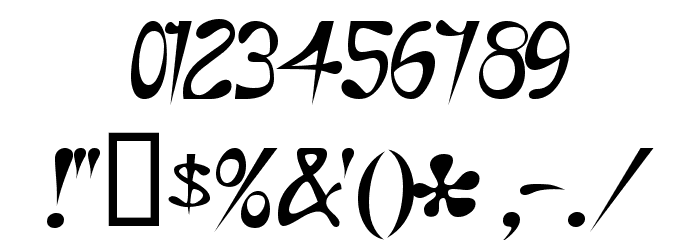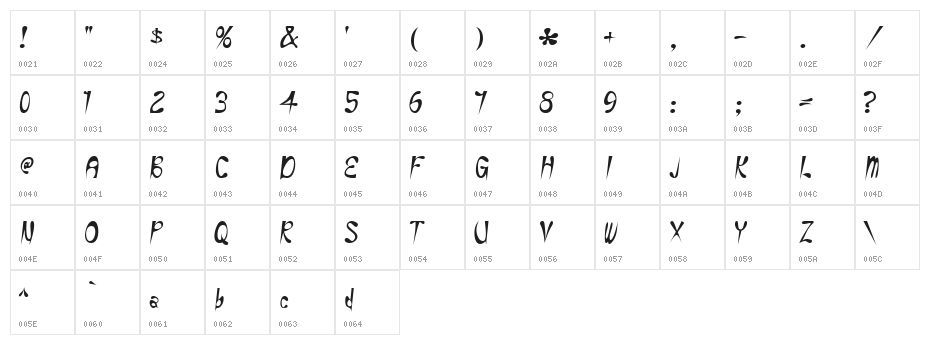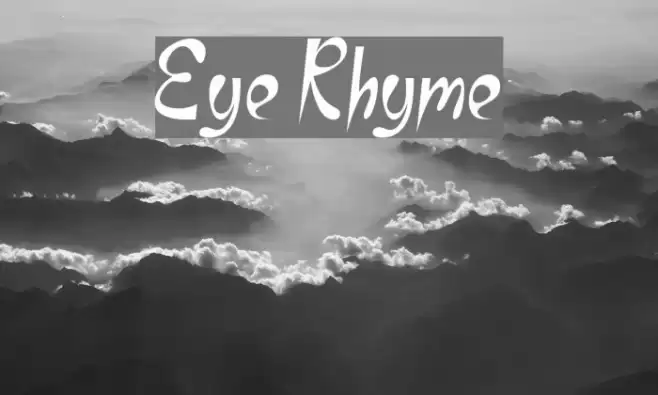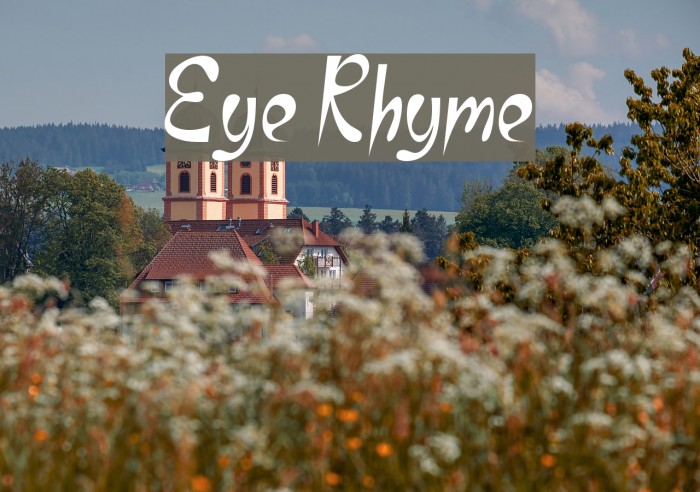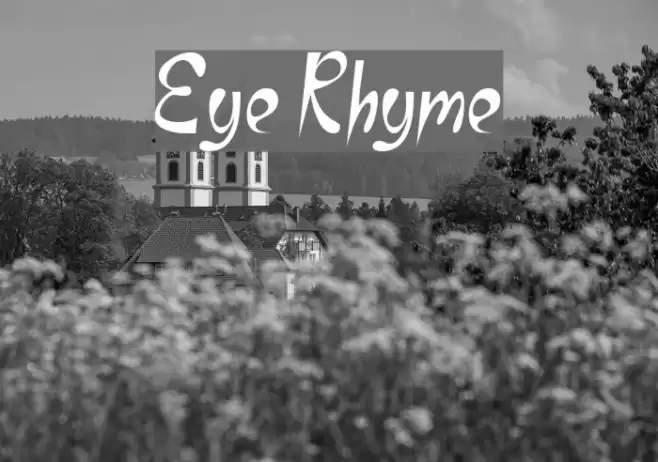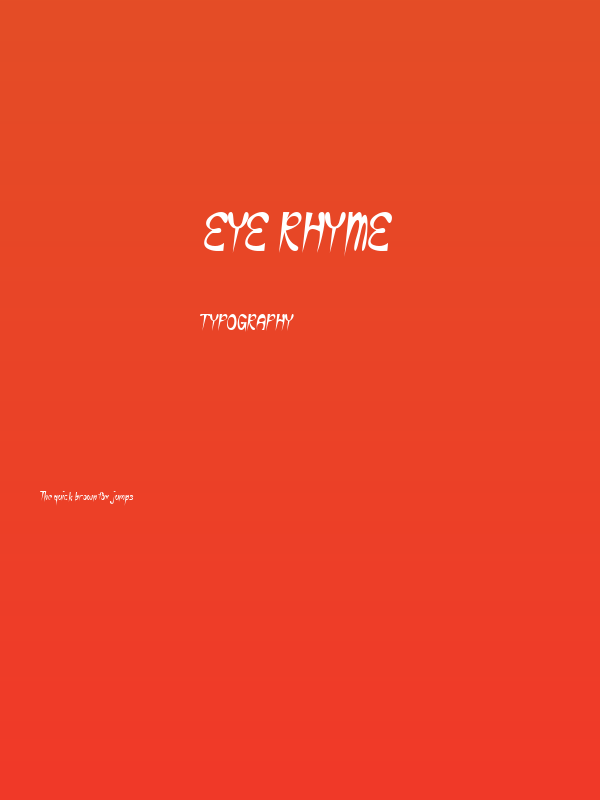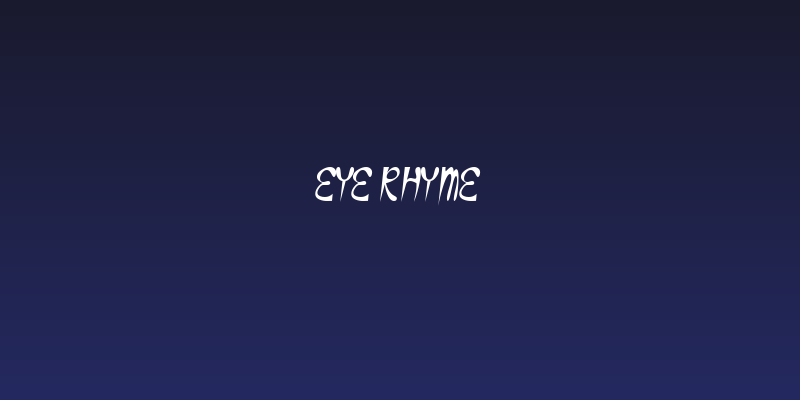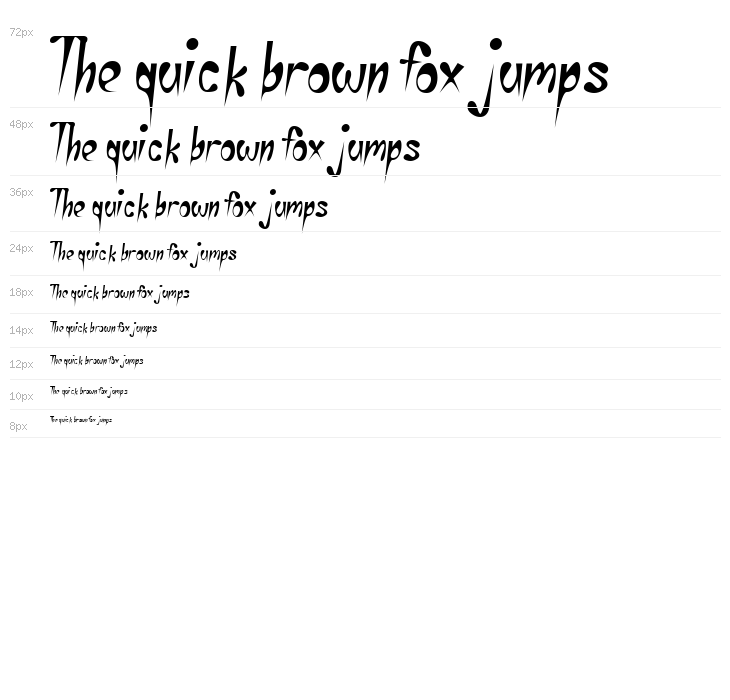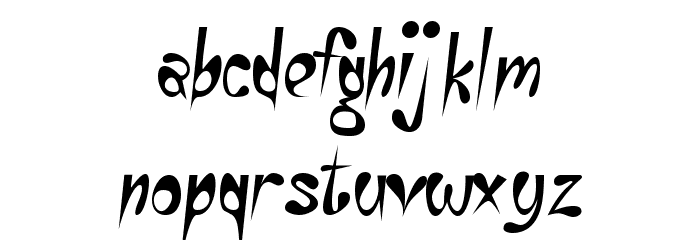
Eye Rhyme Font
Eye Rhyme Description
This font features a unique and dynamic style with elongated and sharp serifs that give it a dramatic flair. The uppercase letters are bold and commanding, with a slight slant that adds to the sense of movement. The lowercase letters maintain this energetic style, with some characters featuring distinctive curves and angles. Numbers and special characters are designed to match the overall aesthetic, ensuring consistency throughout. The font's playful yet edgy appearance makes it suitable for creative and artistic projects.
| Proposed Projects | Ideal for posters, album covers, branding for creative industries, and artistic event invitations. |